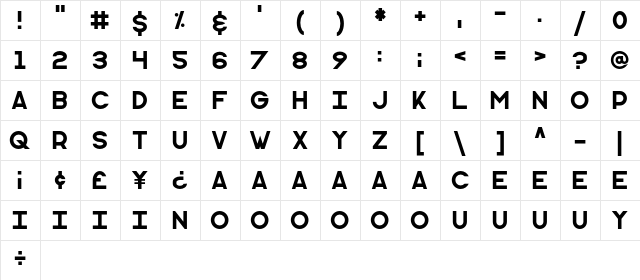
Monometric Regular Font Preview
Monometric Regular
Design Context for Monometric Typeface
Monometric brings the precise, column-aligned rhythm of monospaced typography to designs that value technical clarity and systematic order.
Pro Tip: Use Monometric with slightly increased line-height for extended reading — fixed-width spacing can feel dense in longer passages without extra breathing room.